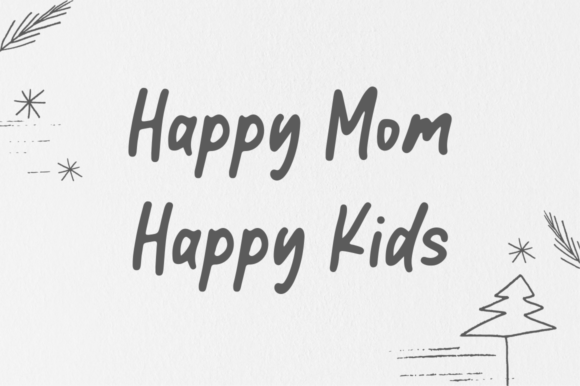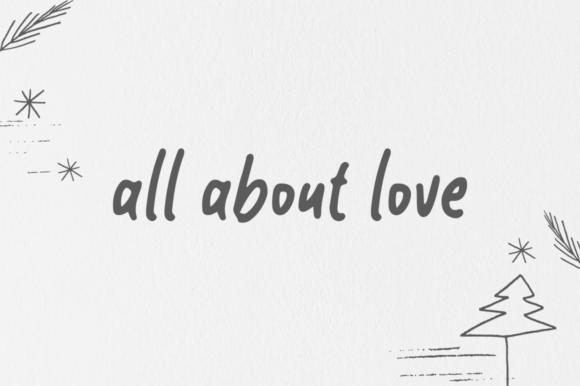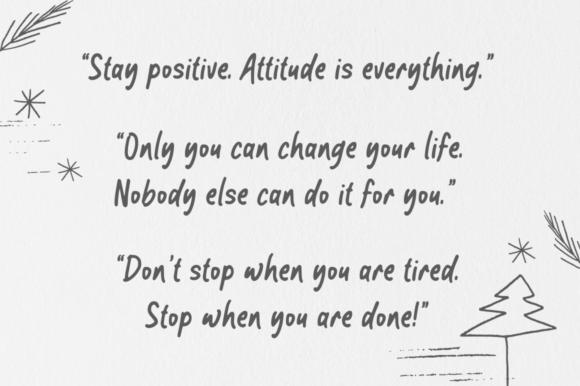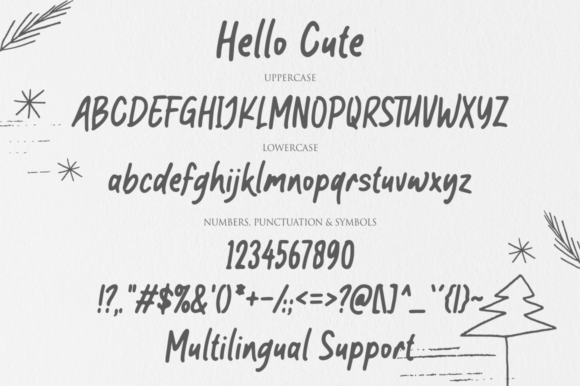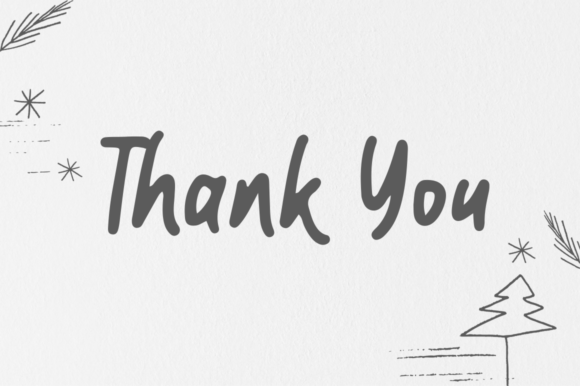
Hello Cute Font
Add Joy to Your Designs with Hello Cute Handwritten Font
Hello Cute Handwritten Font is a delightful and cheerful typeface designed to bring warmth and personality to your creative work. With its casual strokes and friendly charm, Hello Cute is a go-to choice for projects that aim to be approachable, fun, and heartwarming.
This handwritten font is full of life and perfectly fits into a wide variety of creative applications. Whether you’re crafting a digital design, working on a greeting card, or preparing personalized branding elements, Hello Cute has you covered.
Ideal for Crafting, Cards, and Creative Projects
The charm of Hello Cute lies in its ability to feel both playful and personal. It’s particularly suitable for crafts, scrapbooking, handmade product labels, and greeting cards. Its handwritten look helps convey authenticity and care, making it a natural choice for projects that need a human touch.
Additionally, the font adapts beautifully to seasonal and holiday-themed designs. Think birthday cards, Valentine’s Day notes, or even cheerful Christmas gift tags—Hello Cute can do it all!
Friendly Aesthetic Meets Versatility
While some fonts are built for specific use cases, Hello Cute stands out thanks to its versatility. Not only does it look fantastic in print, but it also shines in digital environments, including social media posts, presentations, and web graphics.
What makes it even more appealing is that it maintains readability without sacrificing style. Even in smaller sizes, the smooth and legible characters make your text pop while still feeling friendly and approachable.
Why Designers Love Hello Cute
If you’re wondering why this font deserves a spot in your design toolbox, here are a few good reasons:
• Playful and joyful handwritten aesthetic
• Great for both personal and commercial design projects
• Easy to read, even in smaller sizes
• Perfect for crafts, digital artwork, and printed materials
• Versatile across seasons, occasions, and platforms
With its gentle curves and handwritten vibe, Hello Cute adds emotion and charm that digital fonts often lack. It’s the perfect font to add character to a simple message or make a design more engaging.
Create Heartfelt Designs with Hello Cute
In summary, the Hello Cute Handwritten Font brings a delightful mix of fun, friendliness, and flexibility. Whether you’re working on DIY printables, digital posts, or heartfelt cards, this font delivers a personal touch that resonates.
Let Hello Cute be your creative companion in crafting joyful, expressive, and memorable designs that truly connect.